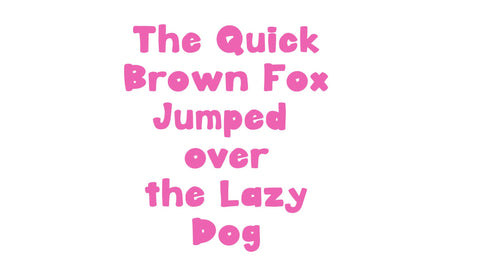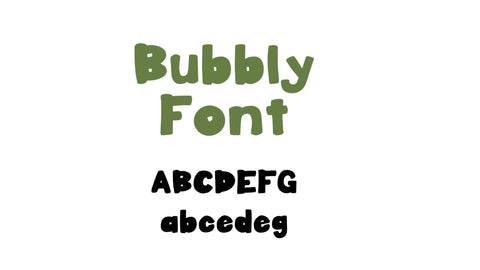
Bubbly Font
This font will be perfect for all your Craft projects! Use it to make custom shirts, keychains, valentines, tags, bags, and whatever else you can think of!